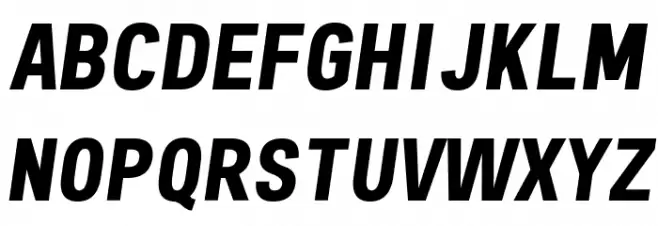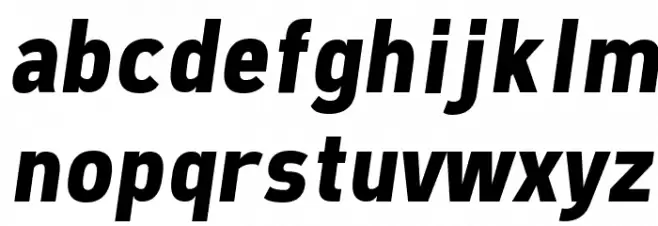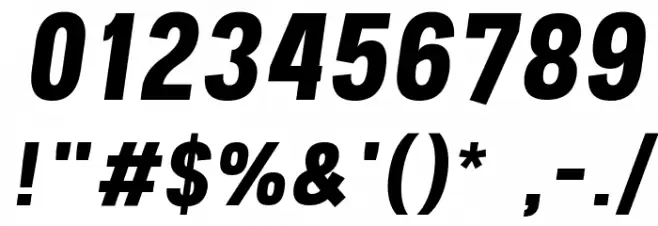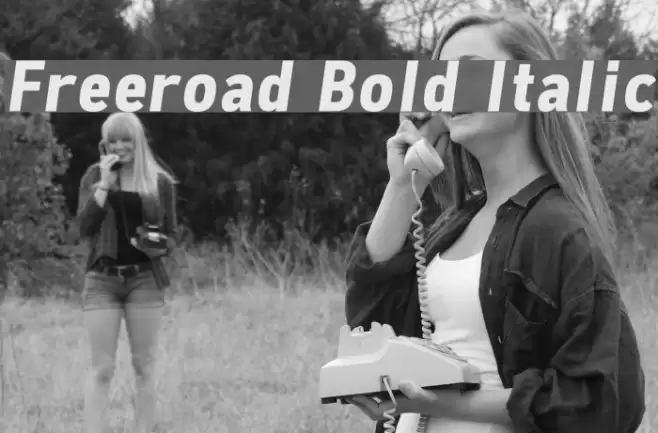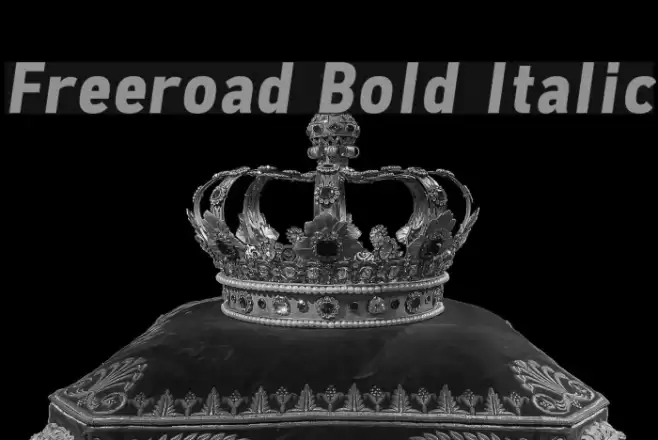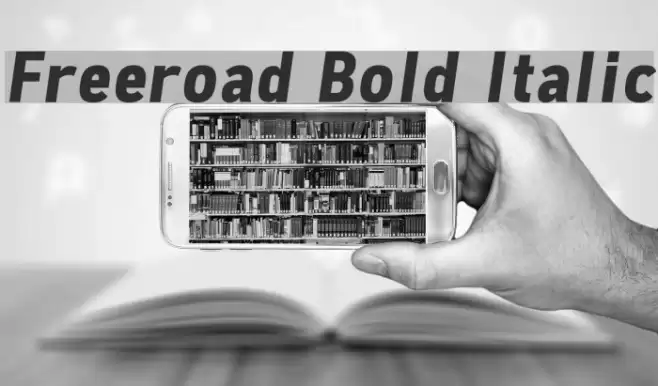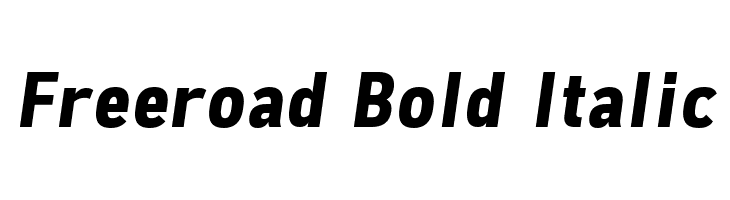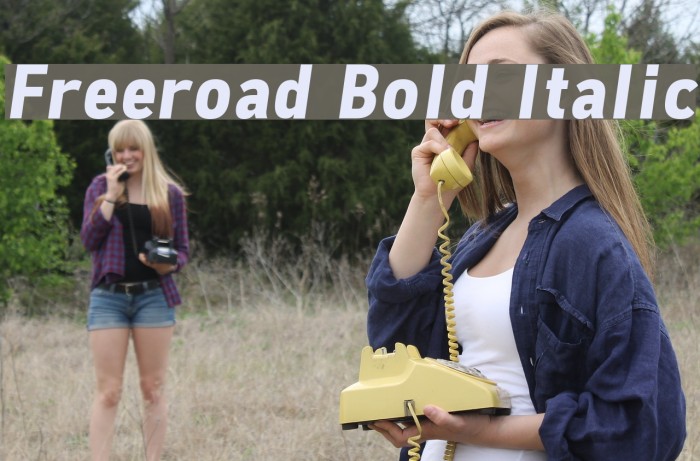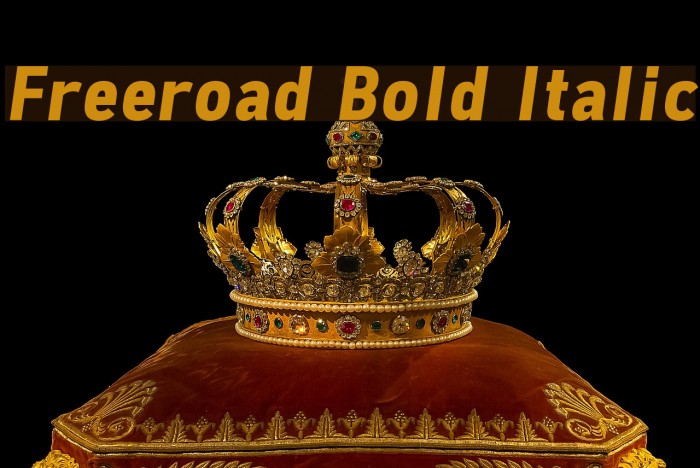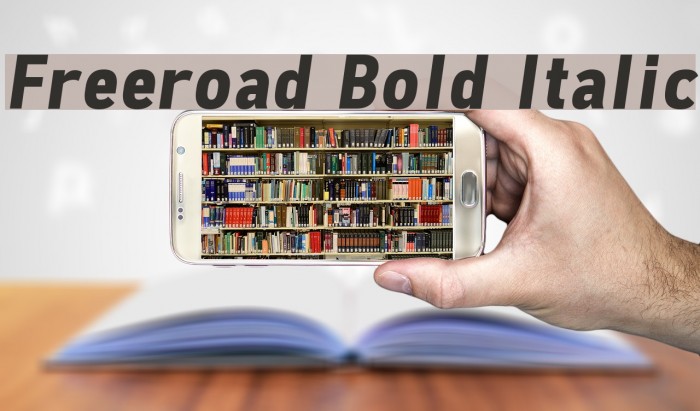
Freeroad Bold Italic
This font exhibits a bold and italicized style, characterized by strong, thick strokes and a forward slant that adds dynamism and emphasis. The uppercase and lowercase letters maintain a consistent weight, ensuring readability while conveying a sense of urgency and modernity. The numerals are clear and robust, matching the overall boldness of the alphabet. Special characters are well-defined, complementing the font's assertive appearance. This typeface is designed to stand out, making it suitable for impactful headlines and attention-grabbing text.
A bold, italicized font with strong strokes and a modern, dynamic style.
- Proposed Projects: Ideal for branding, advertising, headlines, and any project requiring a strong visual impact.
- Use Case: Headlines, Logos, Advertising